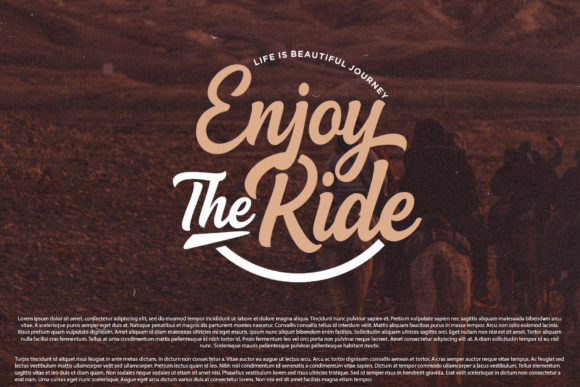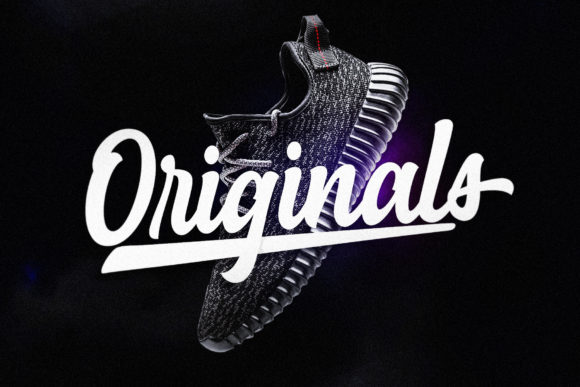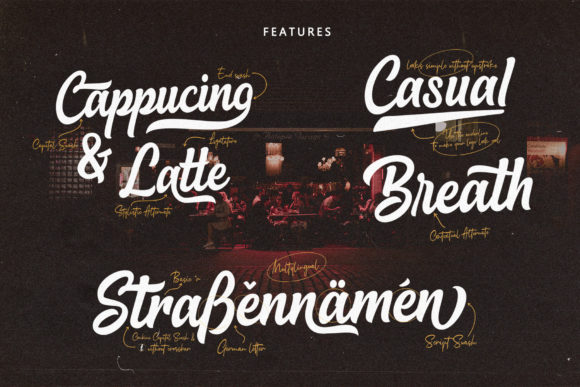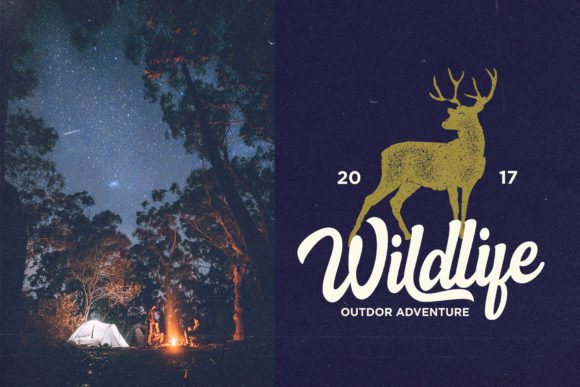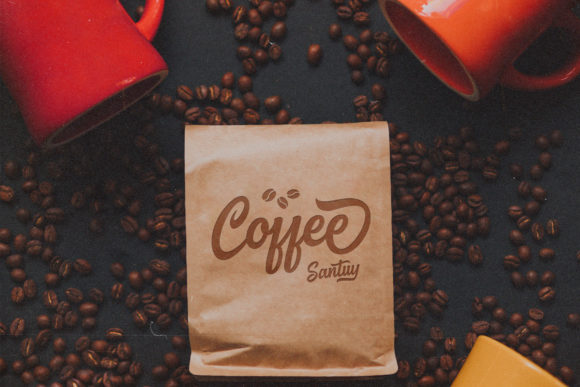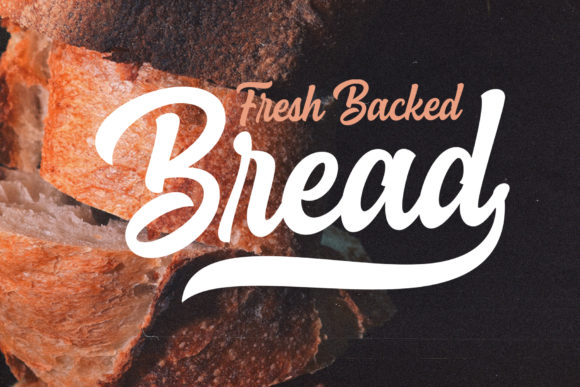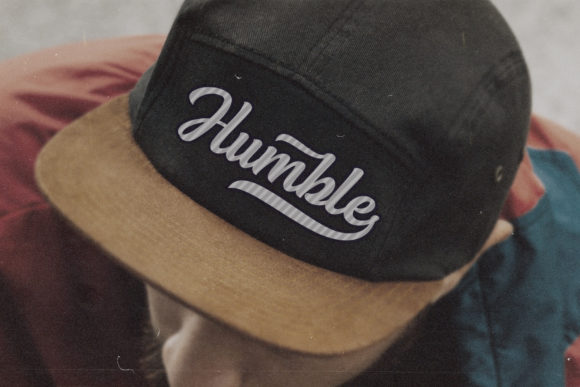
HomeScript FontsSpellkid Font Script Fonts Spellkid Font FacebookXPinterestWhatsApp Spellkid Font Poster 2 Spellkid Font Poster 3 Spellkid Font Poster 4 Spellkid Font Poster 5 Spellkid Font Poster 6 Spellkid Font Poster 7 Spellkid Font Poster 8 About Spellkid Font Spellkid is a bold and fun handwritten font with a unique style. Fall in love with its authentic charm! DOWNLOAD ON CREATIVE FABRICAThis font is sold and delivered by Creative Fabrica. Font Canyon may earn a commission if you buy through this link. People also explored Rostalia Font Sacramento Pro Chayton Font Soul Mate Font Teacher Font Day Blissful Font Weeping Willow Nudity When Plants Font 328 0 TagsSpellkid Font Previous articleDandelion Script FontNext articleCardiff Font LEAVE A REPLY Cancel reply Comment: Please enter your comment! Name:* Please enter your name here Email:* You have entered an incorrect email address! Please enter your email address here Website: Save my name, email, and website in this browser for the next time I comment. Personal Use Free Good Times Personal Use Free Read more about this font My Shine Personal Use Free Read more about this font Bashira Personal Use Free Read more about this font Masker Area Personal Use Free Read more about this font BLOG Where to Buy American Fonts Online in 2024 Where to Buy American Fonts Online: The Ultimate Guide for 2024 Looking for the perfect American font to elevate your design projects? You're in the... Best Fonts for YouTube Videos: Make Your Thumbnails Stand Out Top 10 Handwritten Fonts That Elevate Your Designs How to Cut Any Font on Cricut: Convert a Font to SVG (Free)